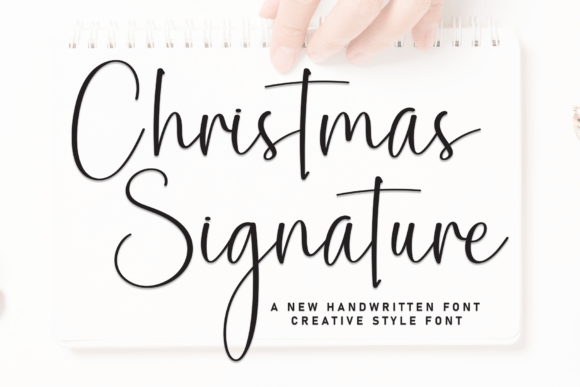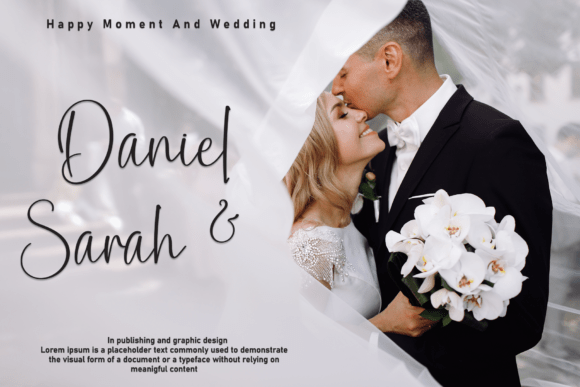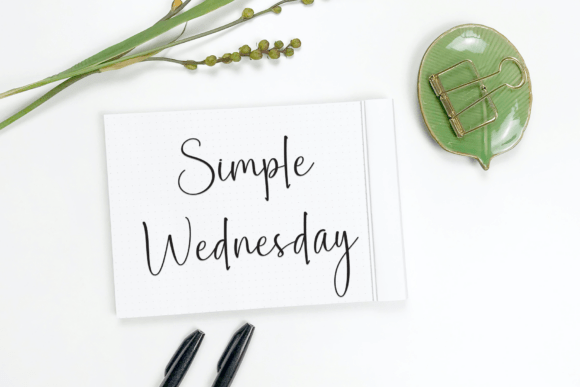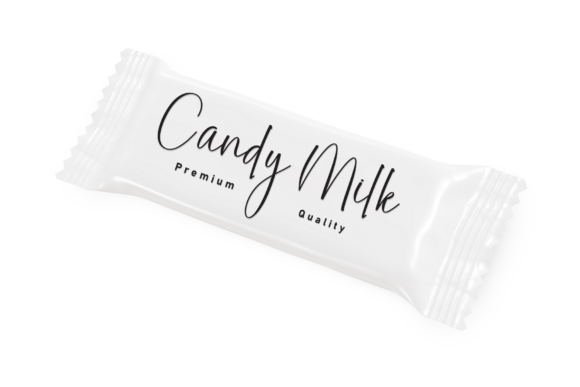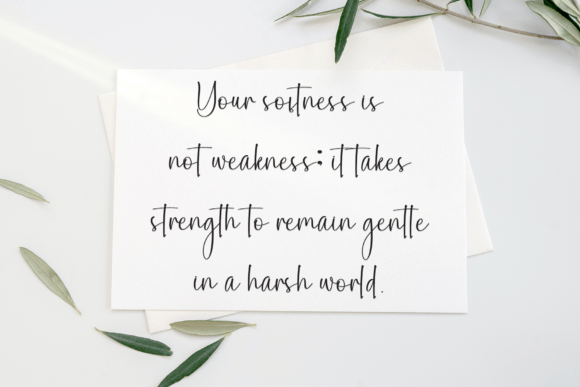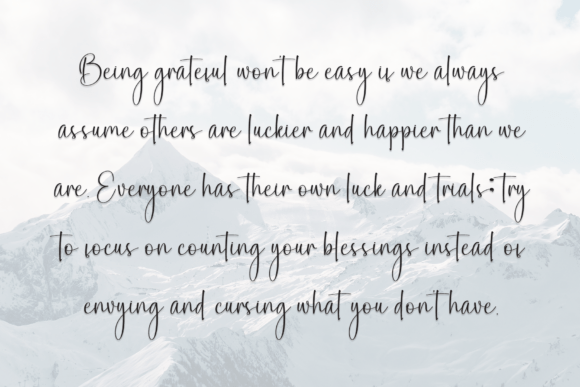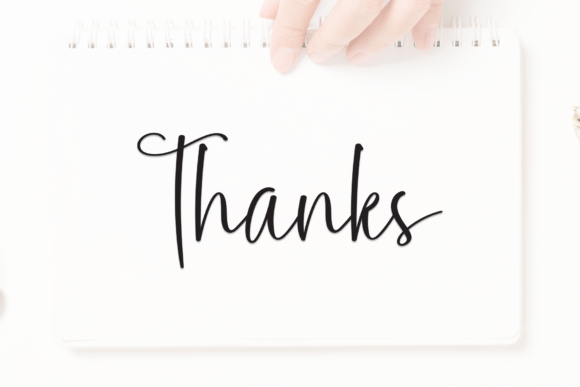
The Magic of the Christmas Season in Typography
As the snowflakes start to fall and the festive lights twinkle, designers around the world get into the holiday spirit. There’s something special about crafting a Christmas project that captures the essence of the season. It’s the moment when creativity and joy come together, and the perfect font can make all the difference. For those seeking a fresh perspective on seasonal typography, the Christmas Signature Font is here to inspire.
This clean, modern, and effortlessly chic handwritten typeface is designed for the modern minimalist who wants to add a personal touch to their holiday projects. Whether you’re working on a delicate watermark logo, a modern greeting card signature, or a stylish header for a holiday lifestyle blog, the Christmas Signature Font is the perfect choice. Its unique and professional look pairs perfectly with light, high-key photography and organic textures, making it a valuable addition to any designer’s toolkit.
Christmas Signature Font Key Features
- Font Family: A unique and festive font family designed specifically for the holiday season, featuring a mix of bold and elegant script styles.
- Unique Characteristics: Features intricate details, ornaments, and flourishes that evoke a sense of festive cheer, making it perfect for holiday-themed designs.
Christmas Signature Font Review
Overall, I’d say the Christmas Signature Font is a decent choice for holiday-themed designs, but it has its pros and cons. ✨ Let’s start with the good stuff:
- The font’s playfulness and cheeriness are infectious. It’s perfect for adding a touch of festive fun to your designs.
- The font is highly customizable, with a range of options for colors, sizes, and effects.
- The font’s versatility makes it suitable for various design projects, from invitations to social media graphics.
- The font’s readability can suffer when used in small sizes or with complex backgrounds.
- The font’s design can feel a bit over-the-top for more subtle or minimalist designs.
Overall, I’d recommend the Christmas Signature Font for designers who want to add a playful touch to their holiday designs. Just be mindful of the limitations and use it judiciously. With some careful planning and execution, this font can be a real showstopper.
Christmas Signature Font: A Practical Application Guide
For optimal results, use the Christmas Signature Font in conjunction with festive graphics and colors.
- Christmas card designs
- Holiday party invitations
- Winter-themed social media graphics
Copperplate is a classic calligraphy font that is perfect for adding a touch of elegance to your designs. It’s ideal for formal invitations, wedding invitations, and other special occasion designs. Copperplate is more elegant and sophisticated compared to Christmas Signature Font, which is more playful and festive.
Carolyna Pro is a modern script font that is great for creating a warm and inviting atmosphere in your designs. It’s perfect for Christmas and winter-themed designs, but can also be used for other occasions. Carolyna Pro is more versatile and modern compared to Christmas Signature Font, which has a more traditional feel.
Great Vibes is a beautiful script font that is perfect for creating a fun and playful atmosphere in your designs. It’s ideal for summer and outdoor-themed designs, but can also be used for Christmas and other occasions. Great Vibes is more casual and fun compared to Christmas Signature Font, which is more formal and traditional.